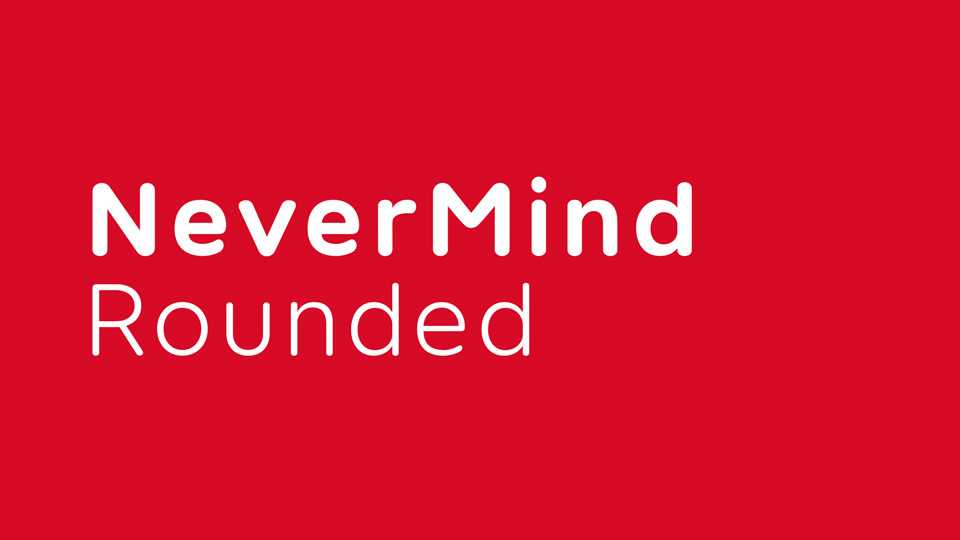
Download Nevermind Rounded font, a versatile sans serif typeface that seamlessly merges geometric structure and soft curves. Modern and friendly, it can be used for all types of communication.
Designer: XMind Ltd.